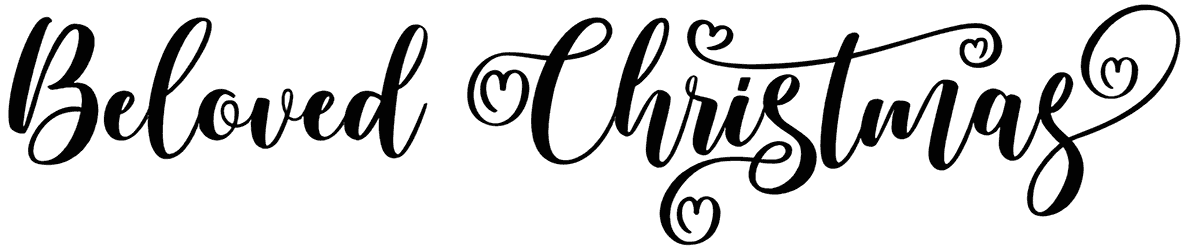
Beloved Christmas Font
Wanna have tastier headers? We have the sweetest Christmas font with a holiday vibe for you. Cook better invitations, greeting cards, posters, ads, banners, or album covers by having this well-designed Beloved Christmas font. This natural decorative effect will be applied to your text through a few easy clicks.